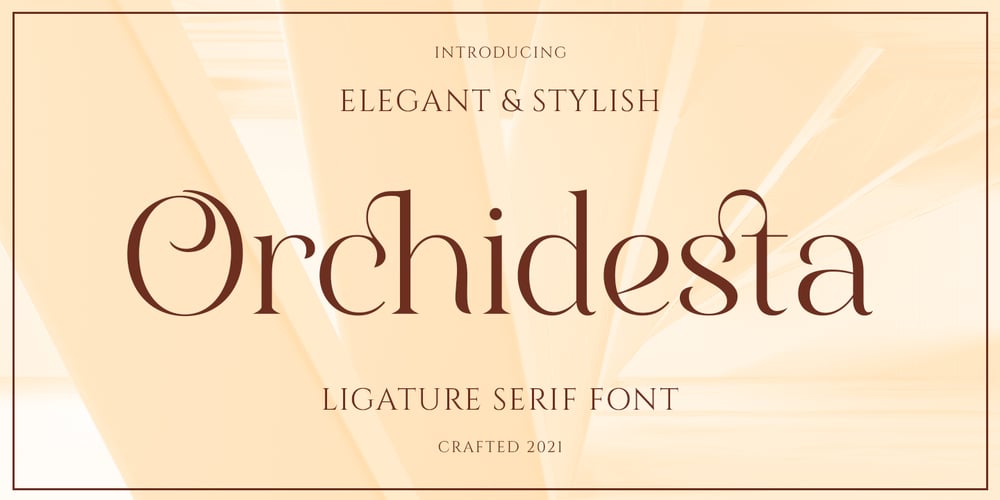
Orchidesta Font Family was designed by Abdul Malik Wisnu, Rivo Adriansyah and published by Mokatype Studio. Orchidesta contains 1 styles and family package options. Hello Introducing, Orchidesta – Ligature Display Serif is an elegant and unique font that uses ligatures to smoothly link letters. Perfect for adding a unique twist to word-mark logos, monograms, or pull quotes. Orchidesta – Ligature has 7 ligatures & 8 Alternate as well making it super fantastic. Ligature can be turned off if required standard writing needs.What’s Included : Standard glyphs Ligatures Alternates Web Font Multilingual Accent Works on PC & Mac, Simple installations Accessible in Adobe Illustrator, Adobe Photoshop, Adobe InDesign, even work on Microsoft Word. PUA Encoded Characters – Fully accessible without additional design software. Fonts include multilingual supportImage used: All photographs/pictures/vectors used in the preview are not included, they are intended for illustration purposes only.Thank You